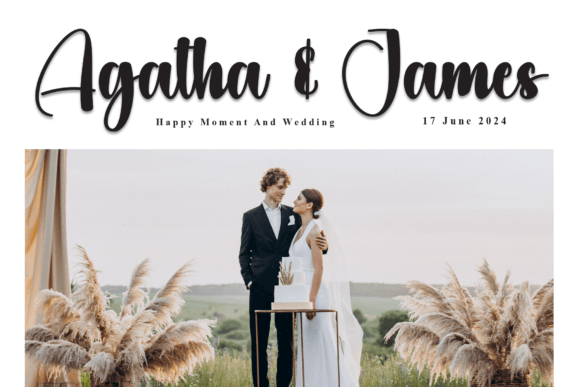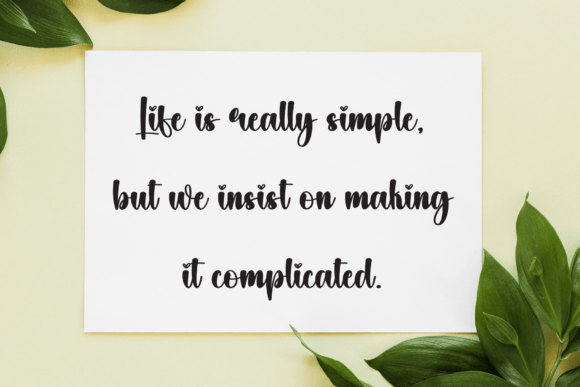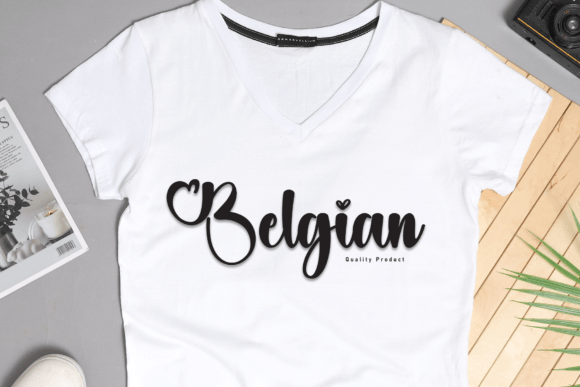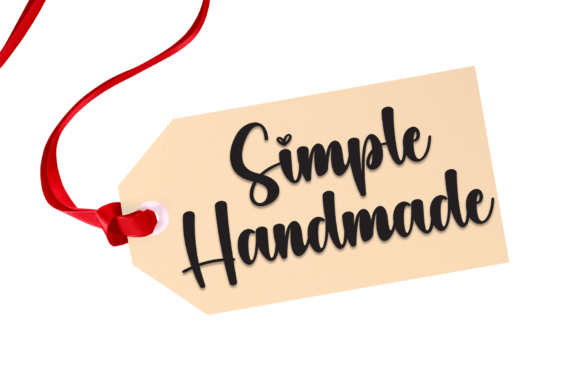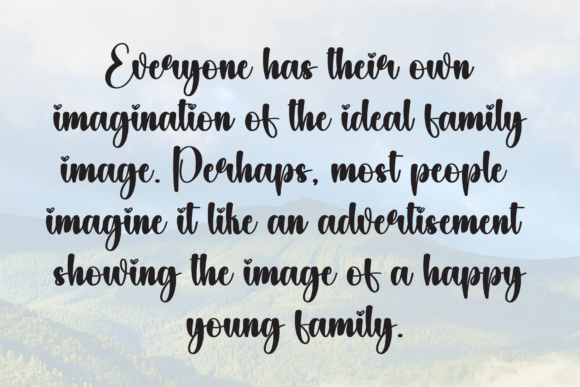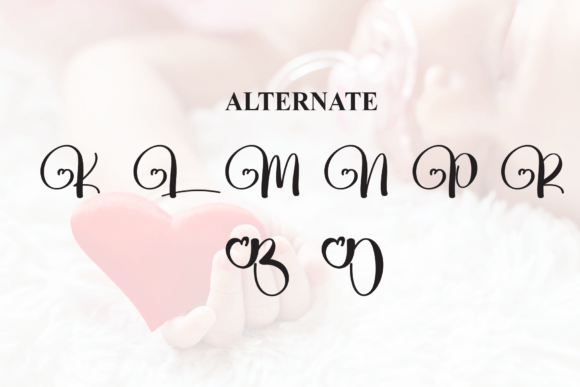
Discover the Magic of Baby Loveling Font
Do you ever find yourself staring at a blank page, waiting for that perfect idea to strike? It’s like the universe is holding its breath, waiting for you to unleash your creativity. And then, in a flash of inspiration, it happens – a concept, a design, a whole new world of possibilities. This is where the Baby Loveling Font comes in, a sweet and friendly handwritten font that’s sure to spark your imagination.
With its natural and unique style, the Baby Loveling Font is the perfect companion for designers looking to add a touch of personality to their projects. Whether you’re working on a birthday card, a children’s book, or a branding campaign, this font is sure to bring a smile to your face and a spring to your step.
Baby Loveling Font Key Features
- Unique Characteristics: Hand-drawn, cursive, and whimsical design elements, perfect for creating a playful and child-friendly atmosphere
- Language Support: Supports Latin, Cyrillic, and Greek alphabets, making it suitable for a wide range of languages
- Font Weight: Includes regular, bold, italic, and bold-italic weights for added versatility
Baby Loveling Font Review
Overall, I’d say Baby Loveling Font is a cute and playful addition to any design project. It’s perfect for creating a nursery or kids-themed website, social media campaign, or product packaging.
- The font is extremely versatile and can be used for a wide range of projects, from children’s books to educational materials.
- The font’s playful and whimsical nature makes it perfect for conveying a sense of joy and innocence.
- The font’s letterforms are well-designed and easy to read, even at smaller sizes.
- The font’s bold weight may be a bit too heavy for some projects, and the font may look overwhelmed if used extensively.
- The font’s italic weight may not be as effective for certain designs, and may appear too similar to the regular weight.
- The font’s lack of ligatures and kerning may make it less suitable for longer blocks of text.
Overall, I’d recommend Baby Loveling Font for designers looking for a playful and whimsical font to add some fun to their projects. Just be mindful of its limitations and use it thoughtfully to avoid overwhelming the design.
Some tips for getting the most out of the Baby Loveling Font include:
- Using the font in combination with pastel colors and soft textures for a cohesive look.
- Applying the font to baby-related designs, such as baby announcements, nursery decor, and baby shower invitations.
- Experimenting with different font sizes and styles to create visual interest.
Q: Is the Baby Loveling Font available in different weights and styles?
Yes, the Baby Loveling Font comes in 6 different weights: Light, Regular, Medium, Bold, Extra Bold, and Outline. Each weight has its unique characteristics and can be used to create a wide range of design styles, from delicate and elegant to bold and playful.